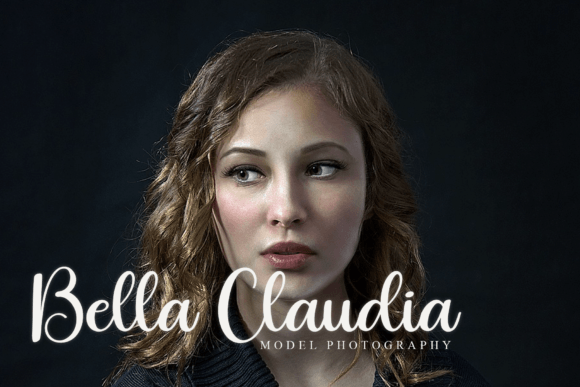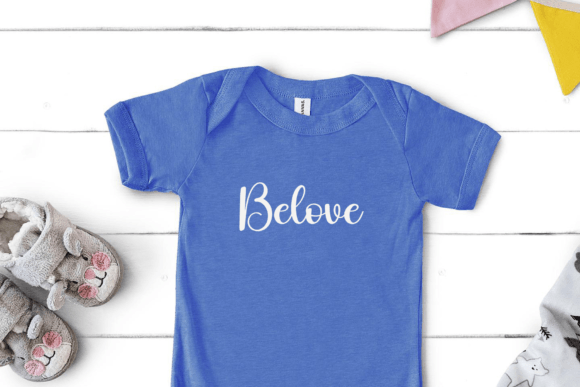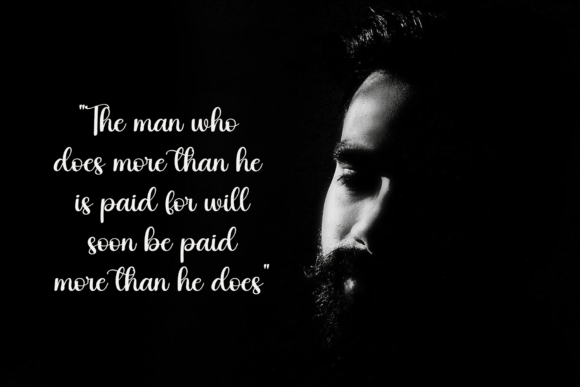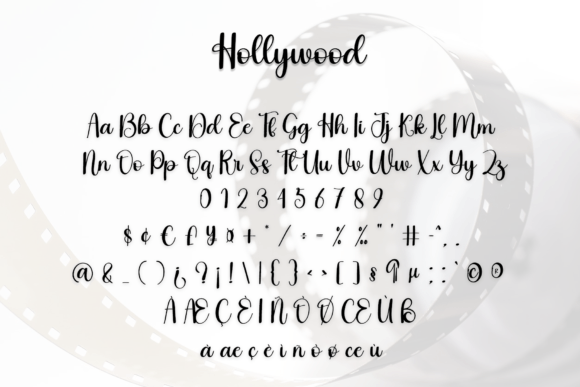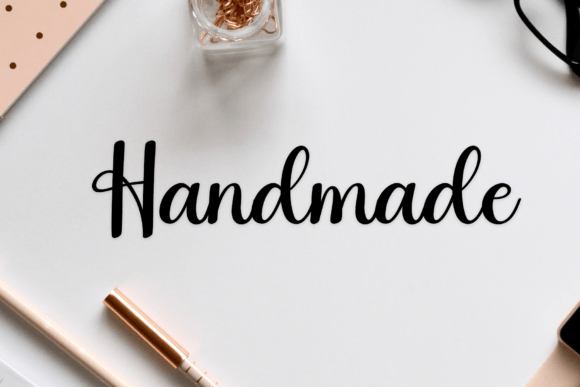
About Hollywood Font
Hollywood is a modern handwritten script font that effortlessly combines a natural, stylish appearance, making it an excellent choice for extraordinary projects that demand a personalized and handwritten feel. The font’s versatile style enhances various design applications, including wedding invitations, thank-you cards, quotes, greeting cards, logos, business cards, and any other project that benefits from a customized touch.
The natural and stylish look of Hollywood adds an authentic and contemporary feel to your designs. The carefully crafted letterforms create a fluid and organic appearance, making the font suitable for projects that require a personalized and handwritten touch.
In wedding invitations, Hollywood brings a touch of elegance and uniqueness. The script style of the font enhances the romantic atmosphere of wedding materials, contributing to a memorable and customized design.
For thank-you cards and greeting cards, Hollywood adds warmth and a personal feel to your messages. The handwritten script creates a connection with the audience, making the cards more heartfelt and special.
In quotes and logos, Hollywood’s versatile style allows it to adapt to different themes and industries. Whether you’re working on a motivational quote or a brand logo, the font’s customized touch adds a unique and stylish element.
For business cards, Hollywood adds a distinctive and memorable quality. The handwritten script creates a personalized and approachable impression, making your business cards stand out and leave a lasting impact.
The font’s versatility extends to various design contexts, making it suitable for a wide range of projects. Its modern handwritten script style brings a contemporary and stylish edge to your designs, enhancing their overall visual appeal.
In summary, Hollywood is more than just a font; it’s a design asset that brings a natural, stylish, and personalized touch to your projects. Whether you’re working on wedding invitations, business cards, or other design applications, Hollywood is ready to elevate your creations with its modern handwritten script style.